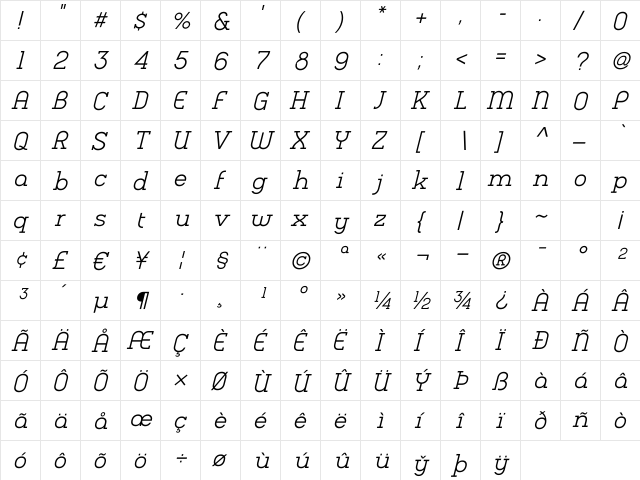
Charifa SerifLight Oblique Regular Font Preview
Design Context for Charifa SerifLight Oblique Typeface
Charifa SerifLight Oblique carries the refined structure of traditional serif typography, with bracketed terminals and considered proportions that communicate credibility and craft. The slanted form adds forward momentum and visual energy. The delicate stroke weight brings airiness and refinement to layouts.